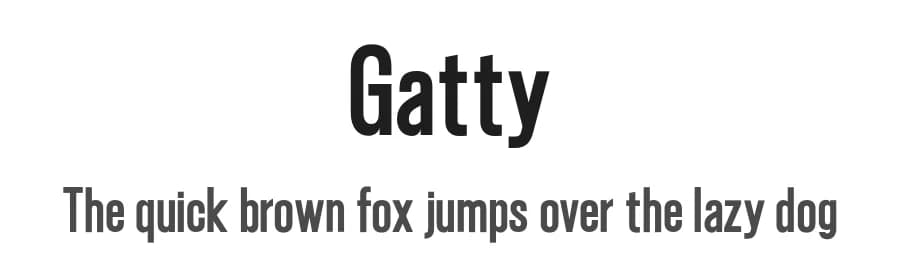
About Gatty Font
| Designer | Matt Chansky |
Gatty Font is a versatile sans-serif font that works for both headings and body text. Pair it with a contrasting serif or slab serif font to add visual interest and a clear distinction between titles and body copy.
Gatty Font
by Matt Chansky